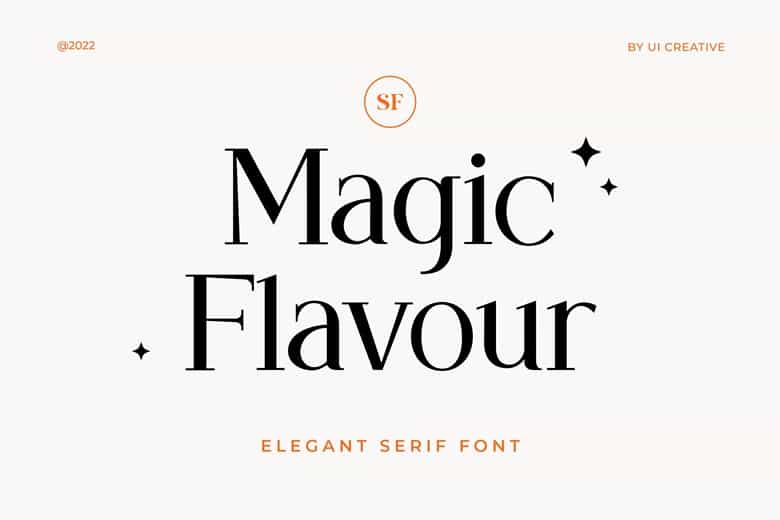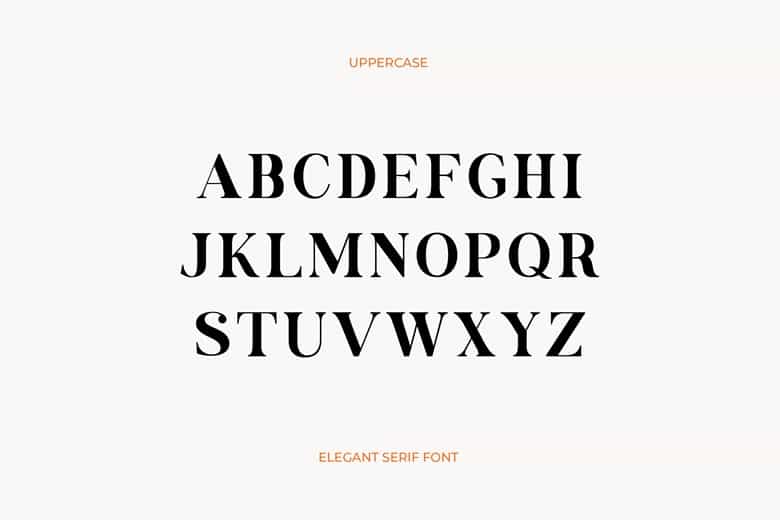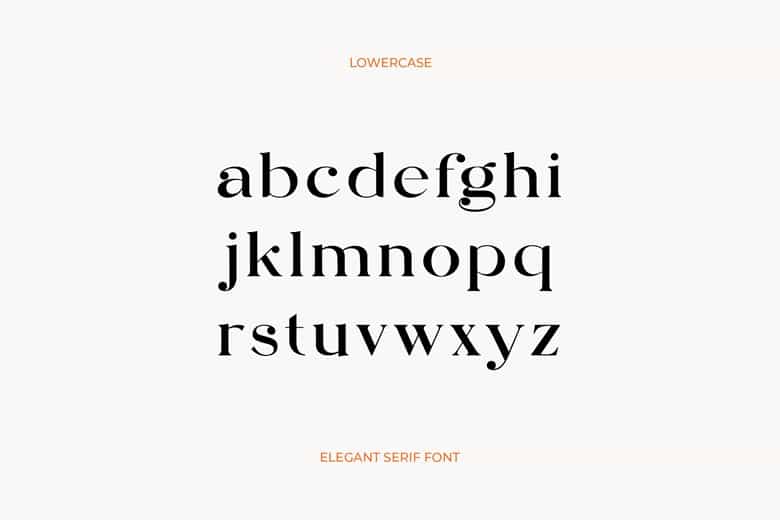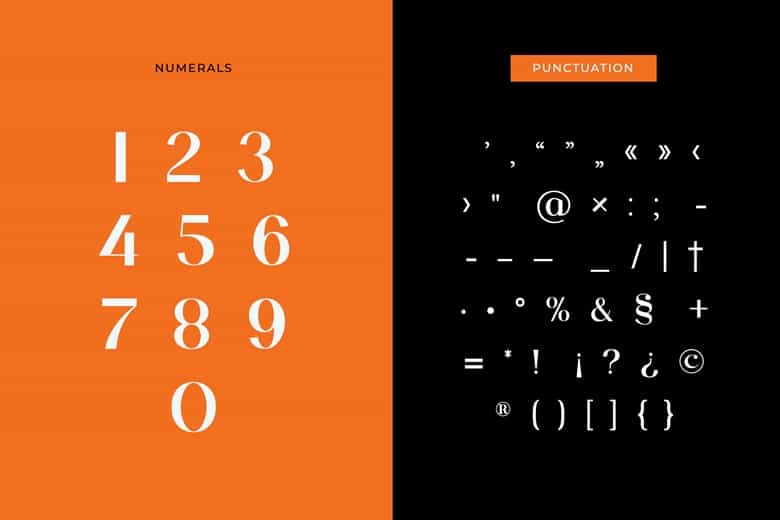
Discover Magic Flavour Font, part of the Serif collection—a versatile and unique font perfect for adding a personal touch to your projects. Download it for free and enjoy crafting designs with style, from invitations to social media posts. This font is available exclusively for personal use, giving you the freedom to create without limits. Unlock your creativity with Magic Flavour Font today!
Magic Flavour, which is a display serif font gives contemporary quality feel of the font is classy, elegant, and stylish. This font is perfectly suitable for signature, stationery, logos, marriage, typography quotations, magazine or book covers, headings, web sites, brand and a lot more.